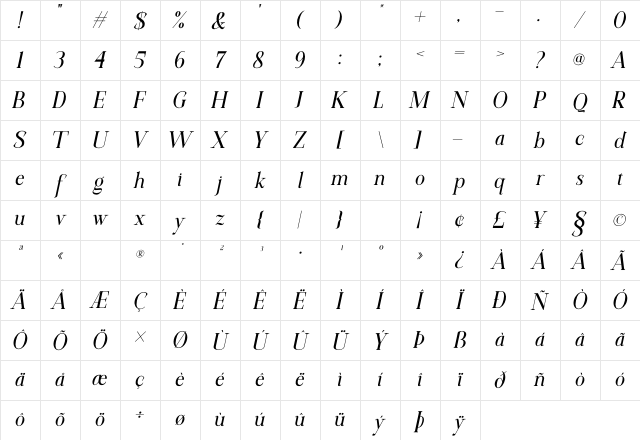
Cavergiz Italic
Design Context for Cavergiz
Cavergiz is a composed and adaptable typeface that performs quietly and consistently across a wide range of design contexts. The slanted form adds forward momentum and visual energy.
Pro Tip: Use Cavergiz for emphasis, pull quotes, and subheadings where its slanted energy can add rhythm to the layout.